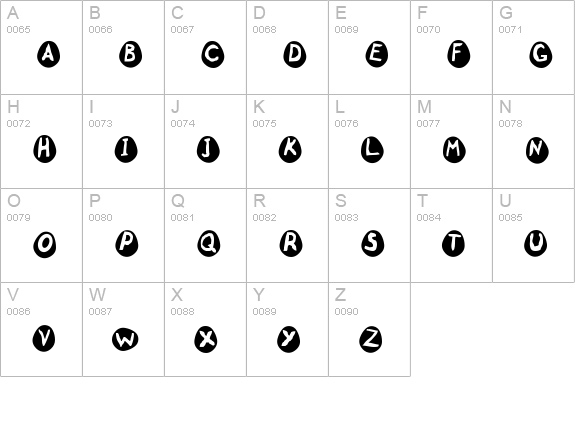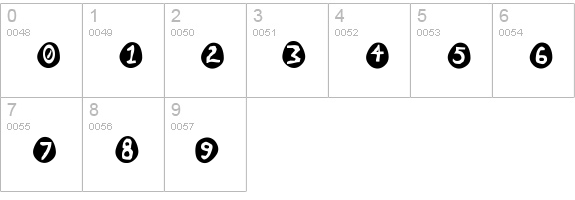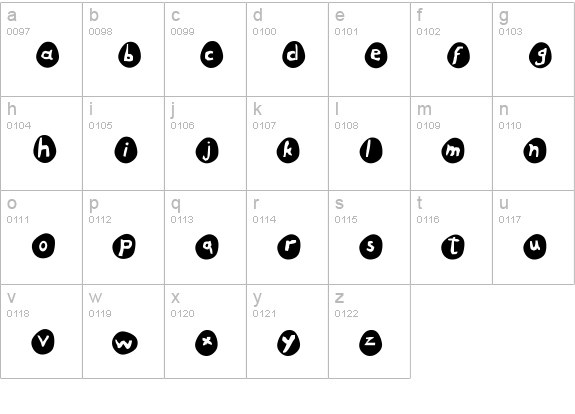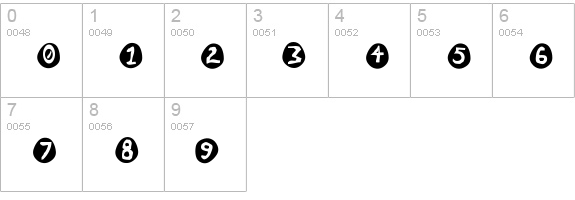
Eggs Font Details
Introducing Eggs font, a delightful and versatile typeface that will add a touch of whimsy to any design project. This font is a perfect blend of elegance and playfulness, making it suitable for a wide range of applications. Eggs font features a unique and eye-catching design, with each letter resembling a cracked eggshell. The irregular shapes and organic curves give this font a natural and handcrafted feel, making it perfect for projects that require a personal and authentic touch. One of the best things about Eggs font is that it is available for free! Yes, you read that right. This fantastic typeface can be freely downloaded at FontsMarket.com, allowing designers and creatives to access its charm and creativity without any cost. Whether you're working on a logo, a poster, a greeting card, or any other design project, Eggs font will surely make your text stand out. Its versatility allows it to be used for both headline and body text, ensuring consistency and visual harmony throughout your designs. With Eggs font, you can unleash your creativity and explore endless possibilities. Its whimsical nature lends itself well to a variety of themes, from children's books and illustrations to food packaging and branding. Let your imagination run wild as you experiment with different colors, sizes, and layouts to create stunning and captivating designs. So why wait? Head over to FontsMarket.com and download Eggs font today. Join the growing community of designers who appreciate the beauty and uniqueness of this font. Add a touch of magic and creativity to your projects with Eggs font and watch your designs come to life.